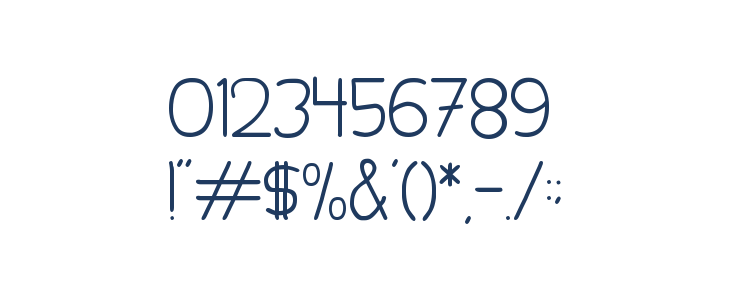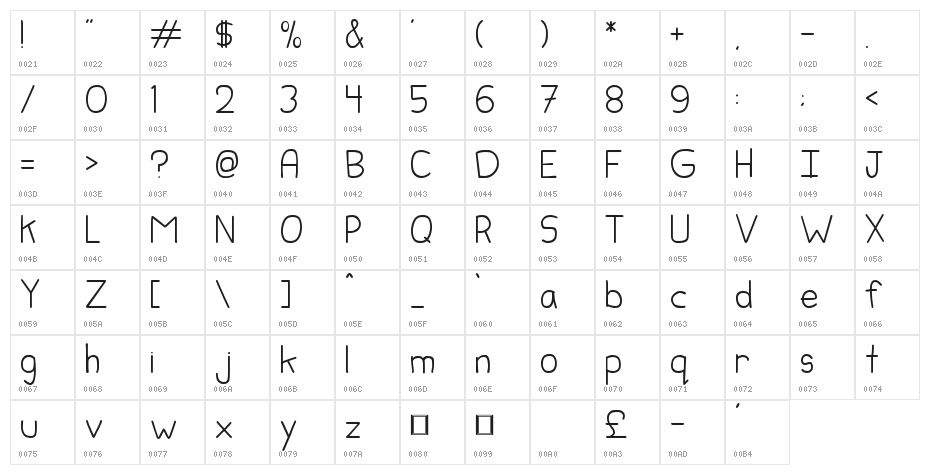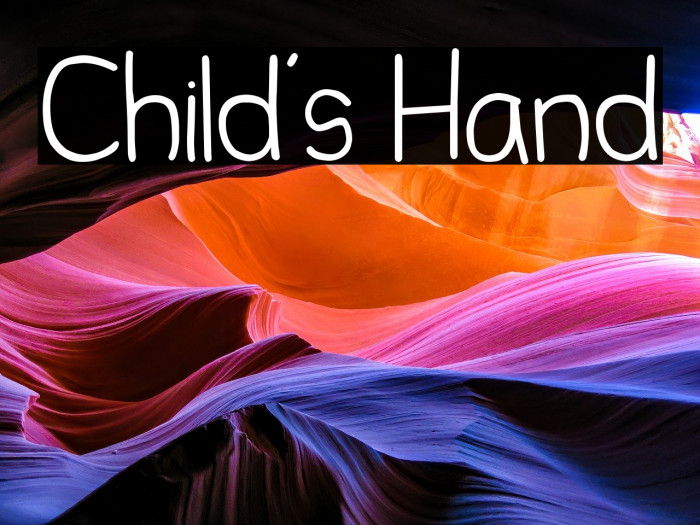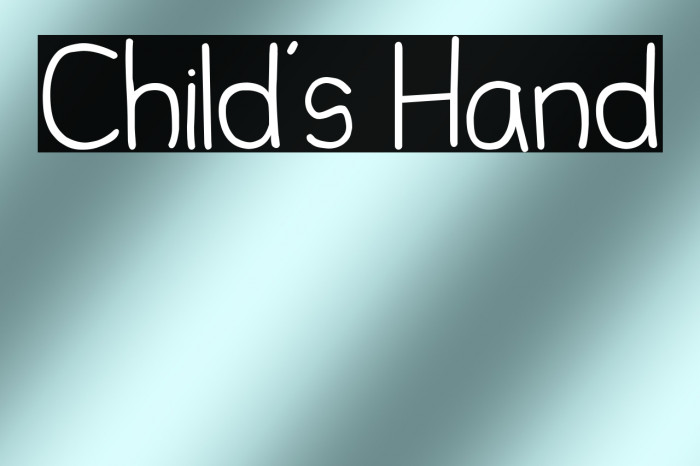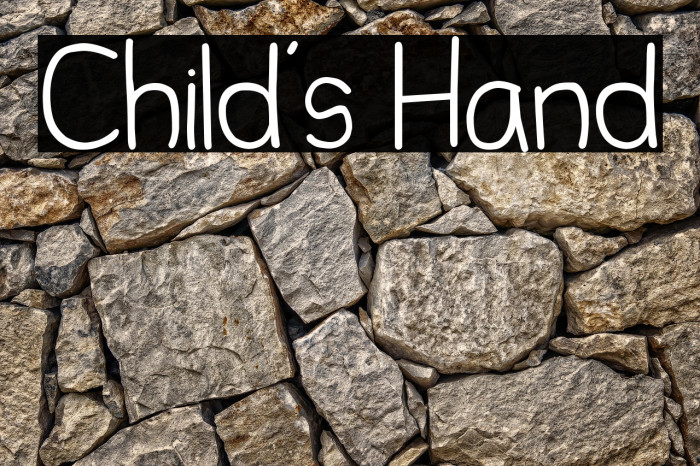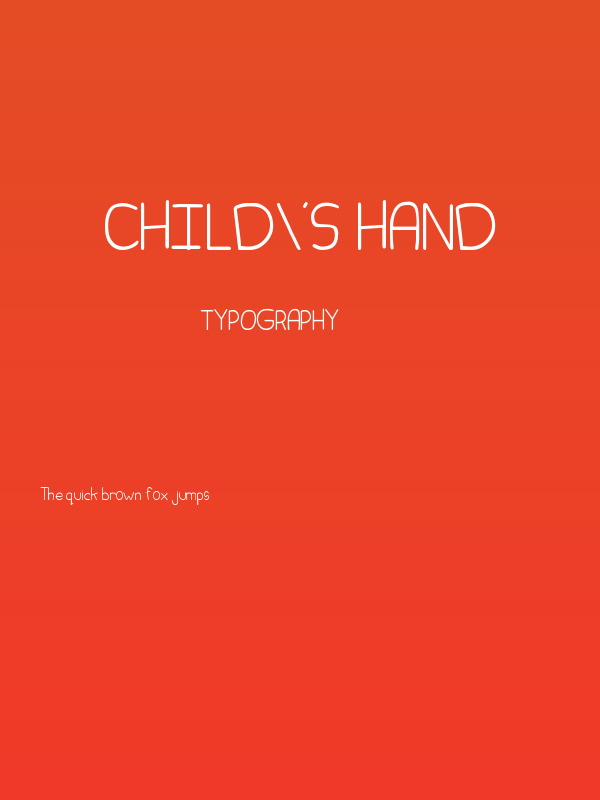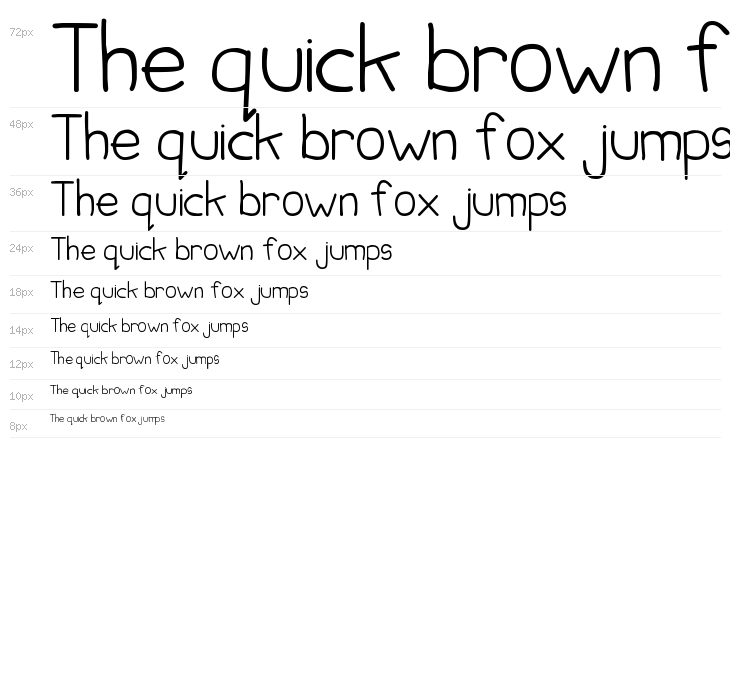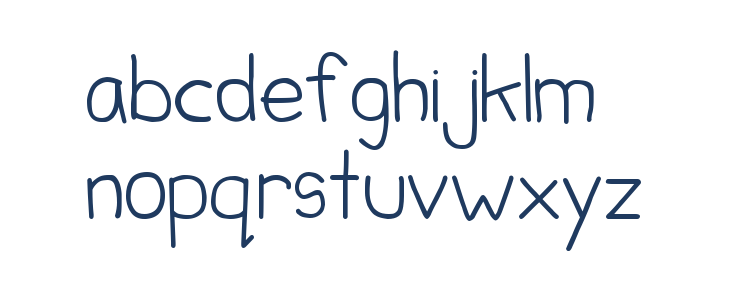
Child's Hand Font
Child's Hand Description
This playful and whimsical font mimics the style of a child's handwriting, characterized by its rounded, uneven strokes and informal appearance. The letters are slightly irregular, giving it a charming and approachable feel. The uppercase and lowercase characters maintain a consistent style, with a friendly and casual vibe. The numbers and special characters are designed to match the overall playful theme, making it suitable for projects that require a touch of innocence and creativity. Its simplicity and readability make it ideal for children's books, educational materials, and playful branding.
| Use Case | Headlines, Logos, Children's materials |
| Proposed Projects | Ideal for children's books, educational materials, playful branding, and creative projects. |